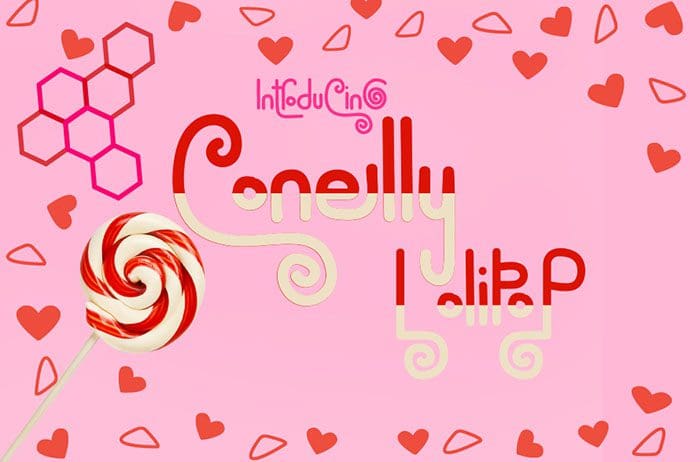
Conelly LolipoP Handwritten Font
Conelly LolipoP handwritten font embodies fun, quirkiness and authenticity. This font will turn any creative idea into a true standout. Designed this font by Inermedia Studio. You can also search more freeĀ Handwritten Fonts.